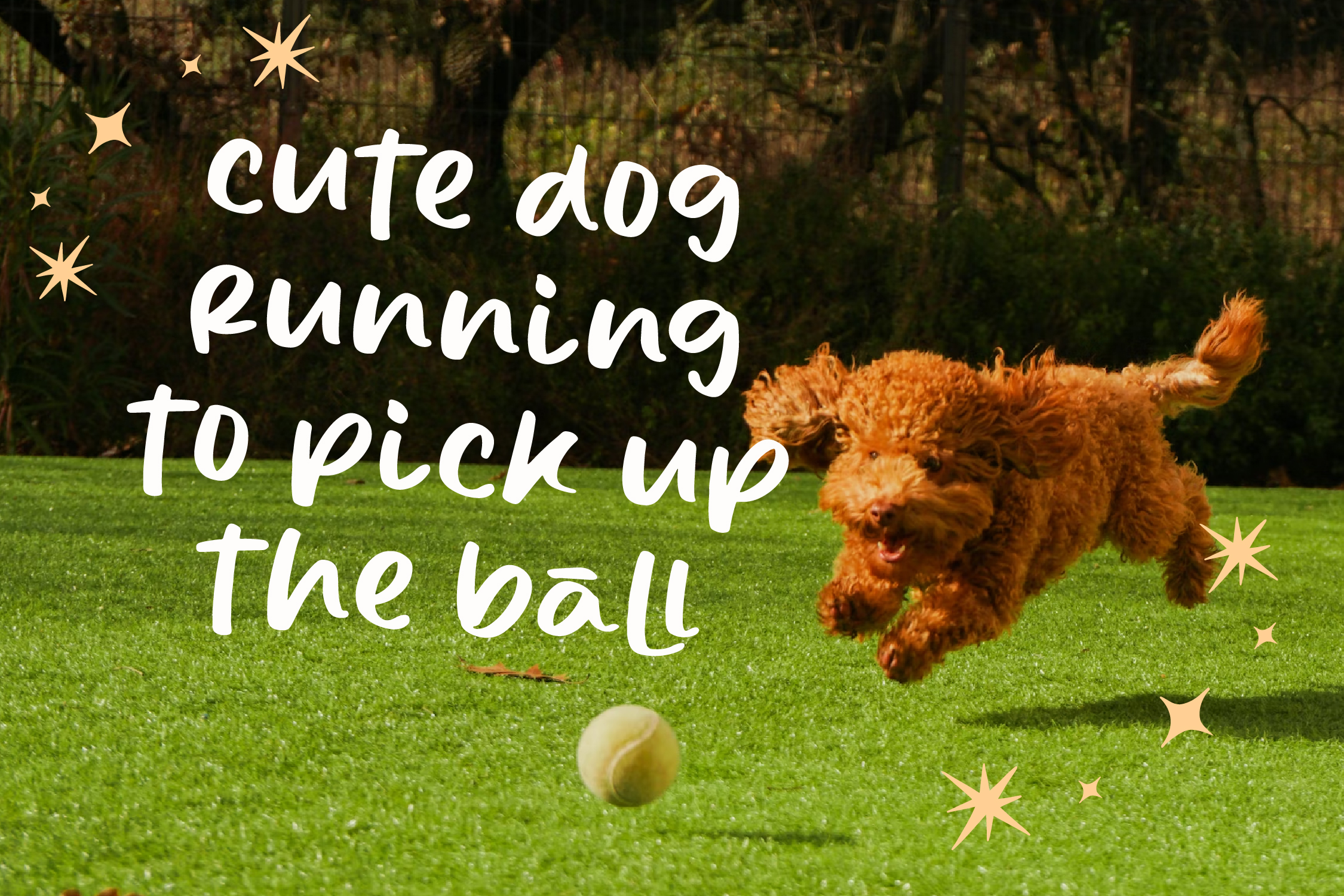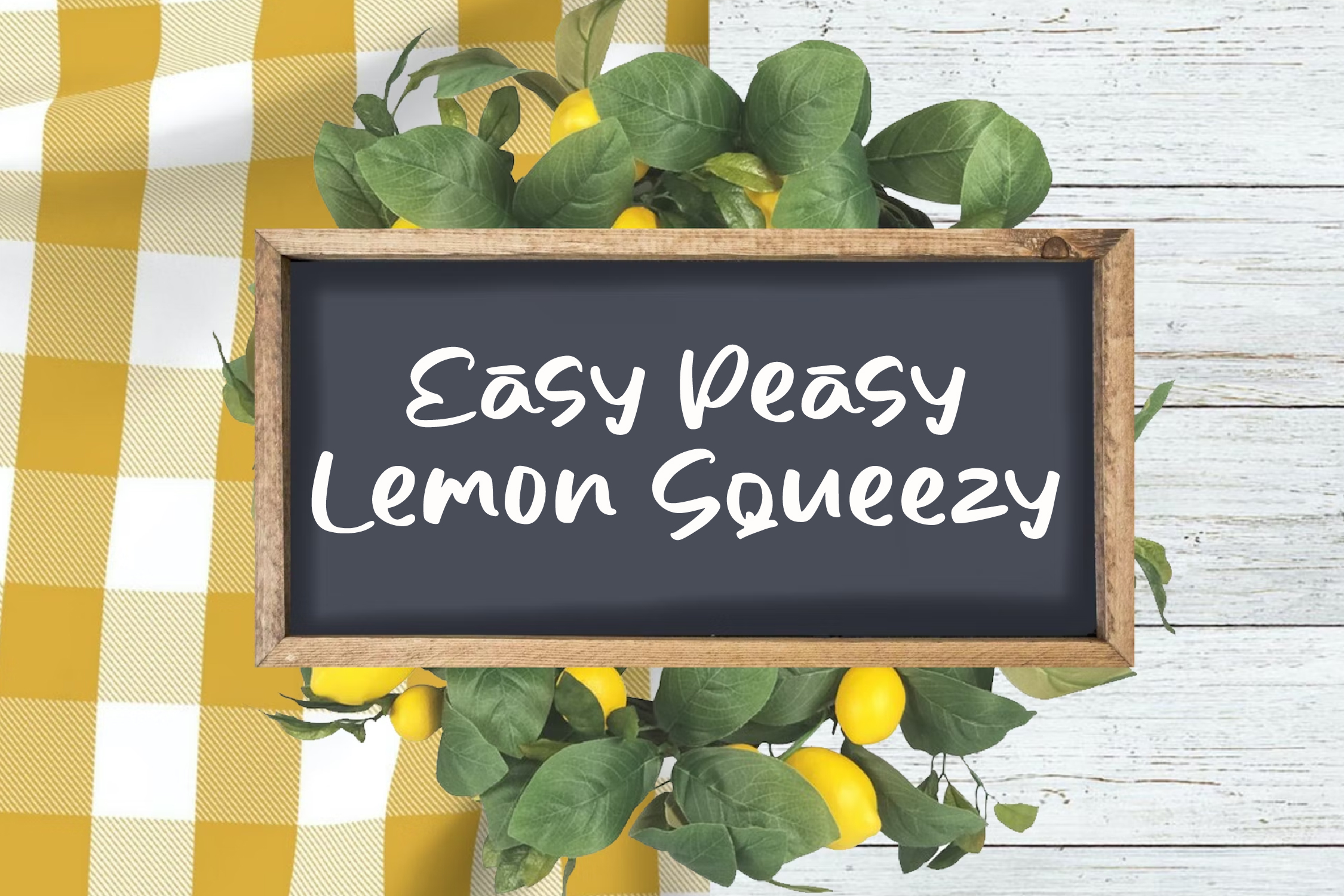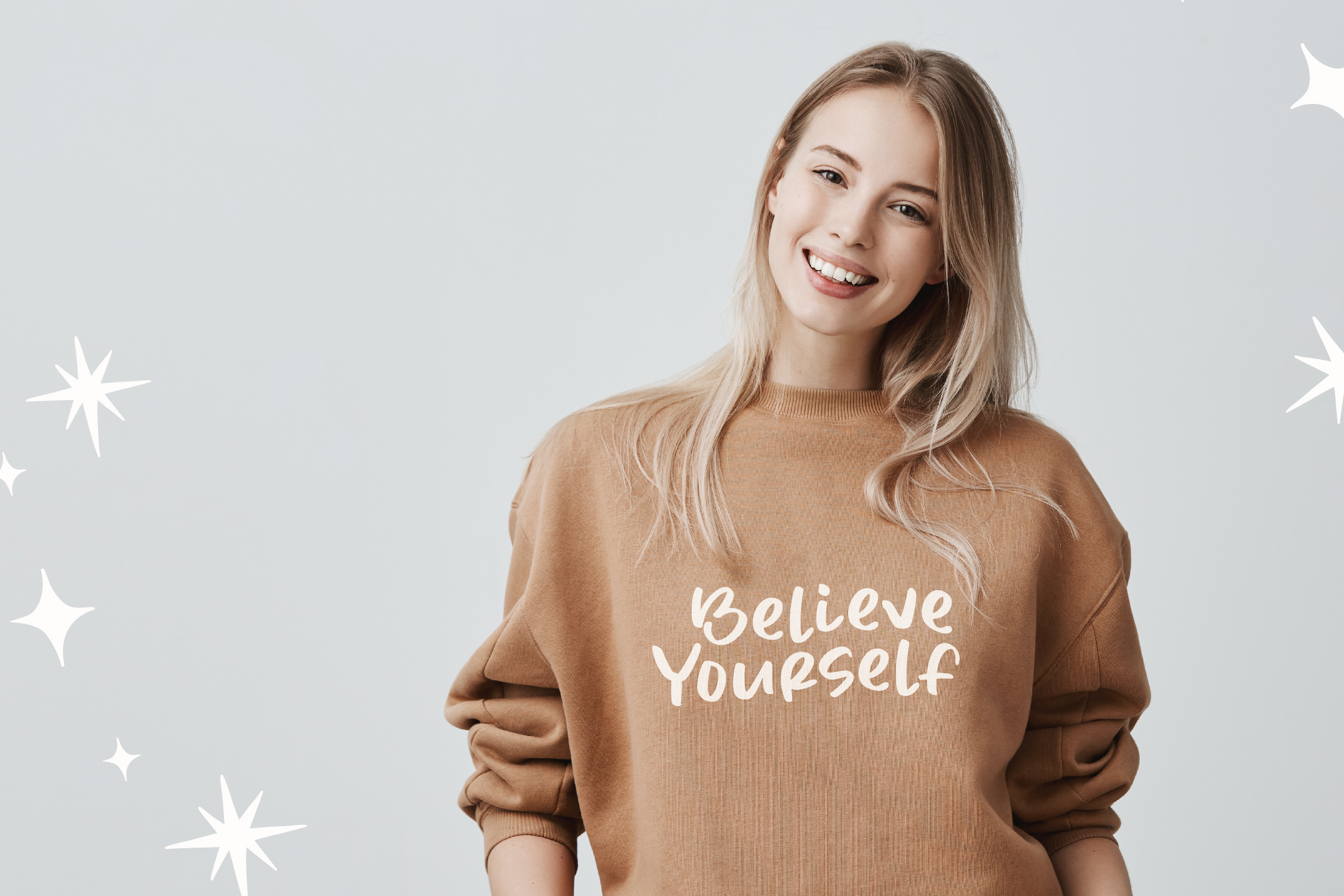
Jerika Font
Jerika Script Font
This is Playful Handwritten Font,  suitable for any projects such as: logos, branding projects, homeware designs, product packaging, mugs, quotes, posters, shopping bags, t-shirts, book covers, name card, invitation cards, greeting cards, label, photography, watermark, special events, and all your other lovely projects that need a beautiful script taste.